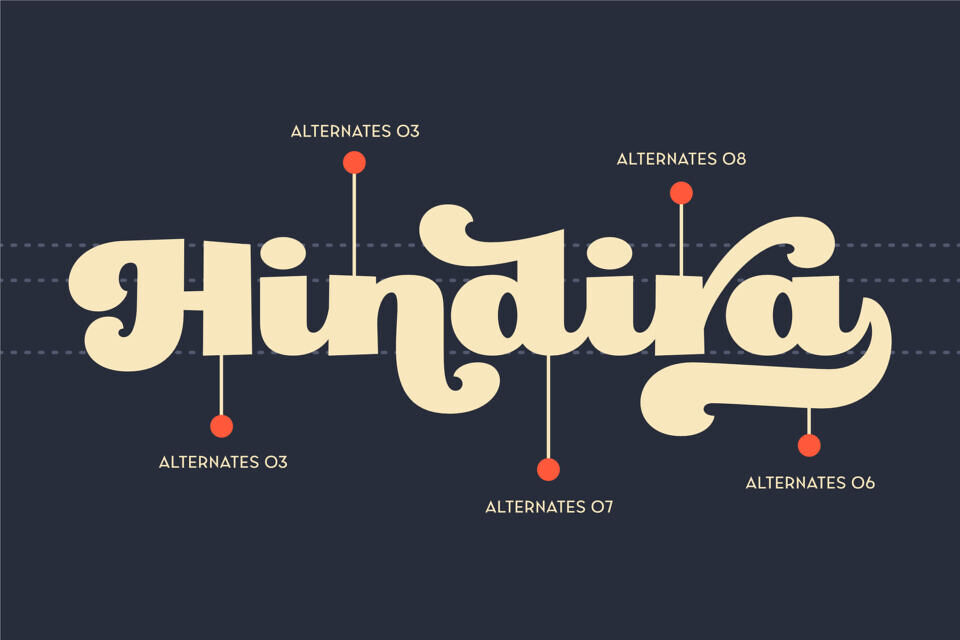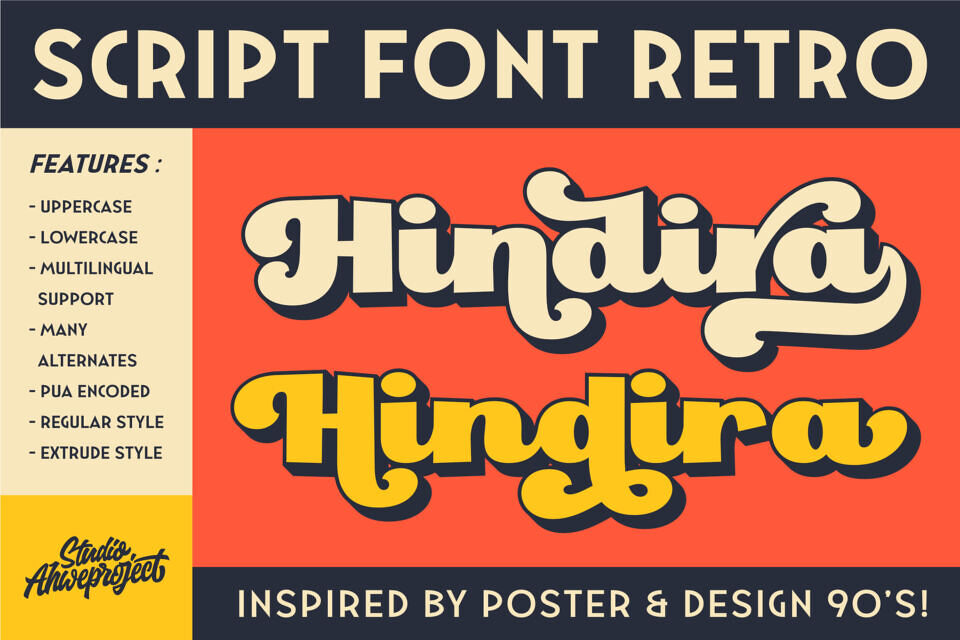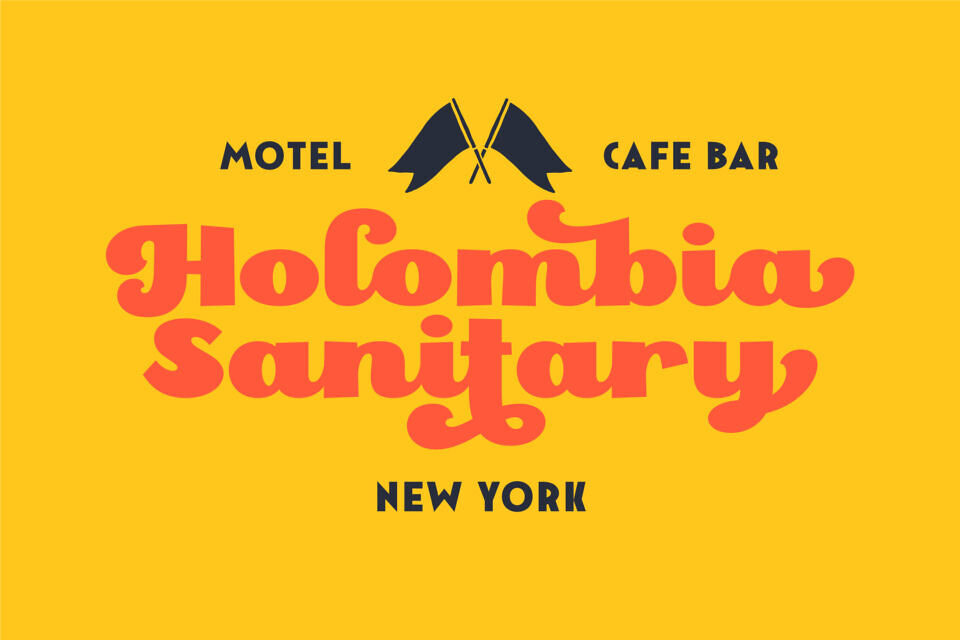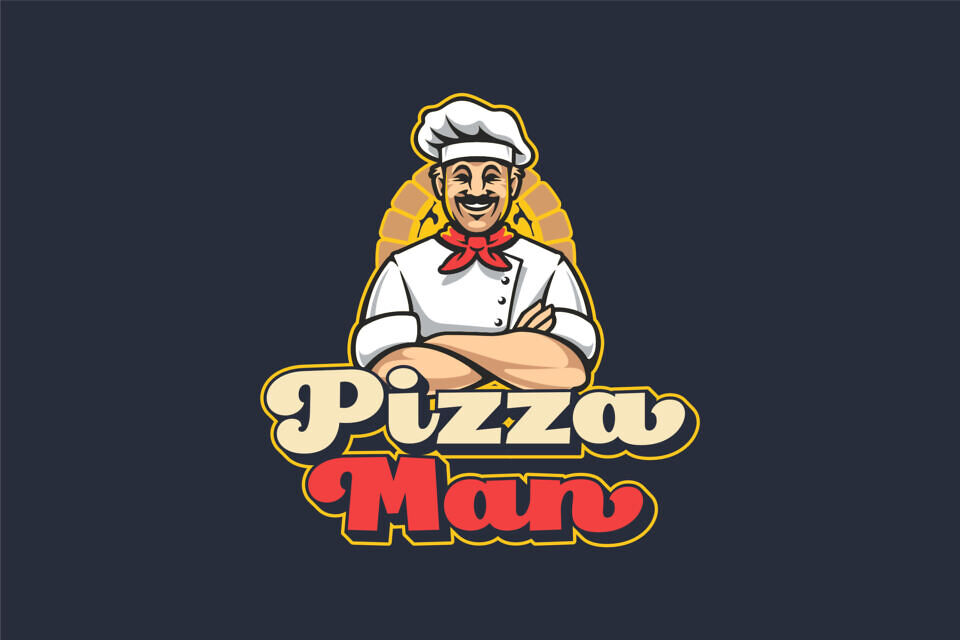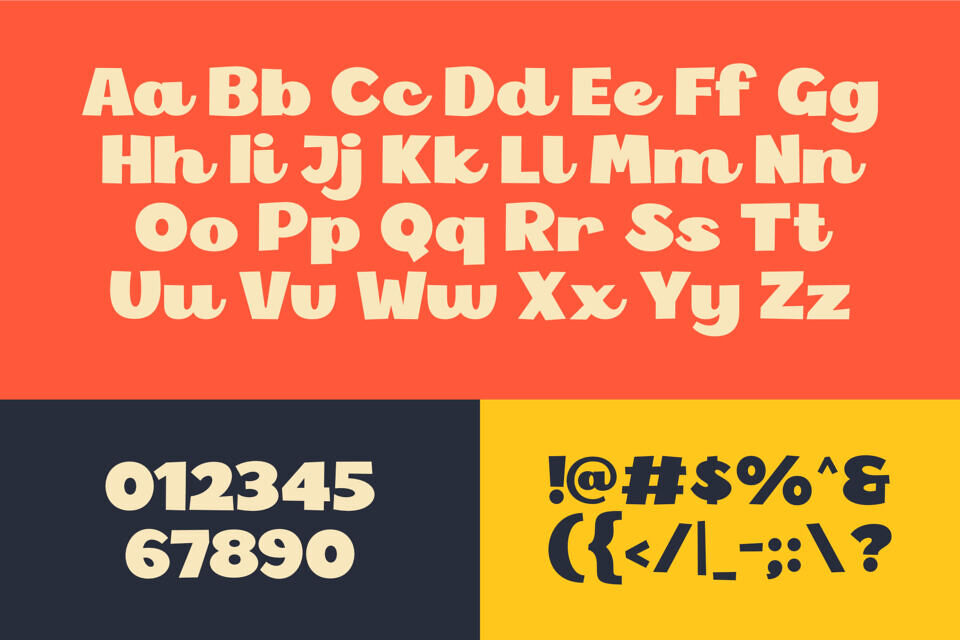
Hindira Font
Get ready to fall in love with Hindira – a retro script font inspired by 90s posters and design vibes! With chunky, playful, and full-of-character letterforms, Hindira is here to make your projects stand out and shine.
With two bold styles, Hindira isn’t just a font – it’s your creative tool to bring retro charm and unforgettable character into any design. Add a touch of nostalgic flair to your work with Hindira today!